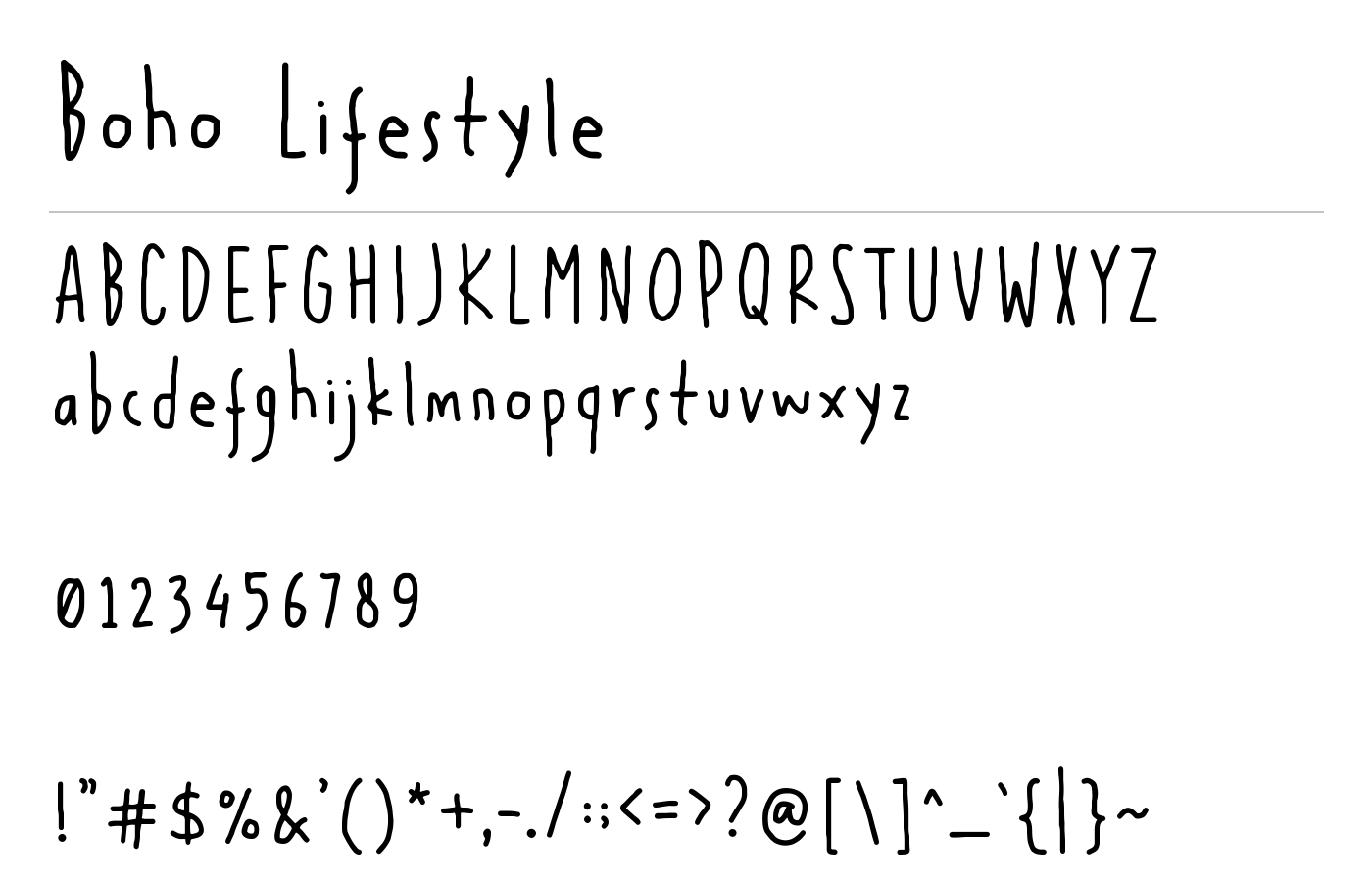
Boho Lifestyle is a narrow, hand-drawn sans serif font with a quirky and casual feel. Its irregular letterforms and varying stroke widths create a playful and approachable personality, making it ideal for creative projects, lifestyle branding, and informal designs that want to convey a relaxed, artistic vibe. This font works well for headlines, logos, and social media where a unique, personal touch is desired.
Boho Lifestyle Font
About Boho Lifestyle Font
| Font family | Boho Lifestyle Font |
| Designer | Sahirul |
| Trademark | Tokokoo Studio |